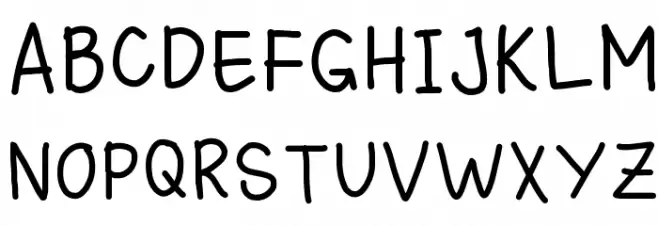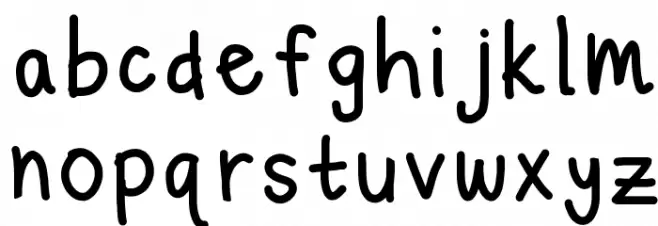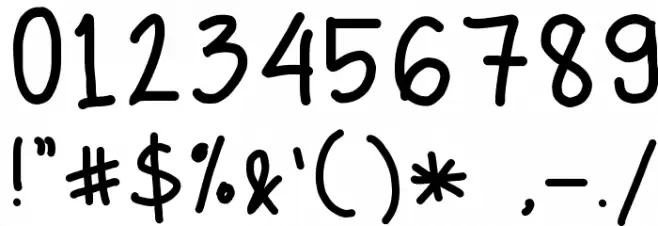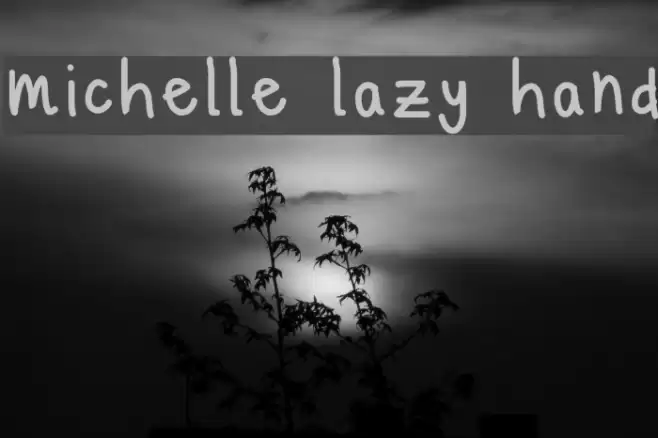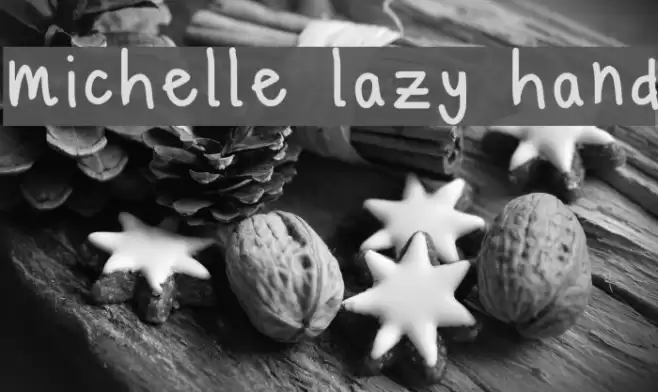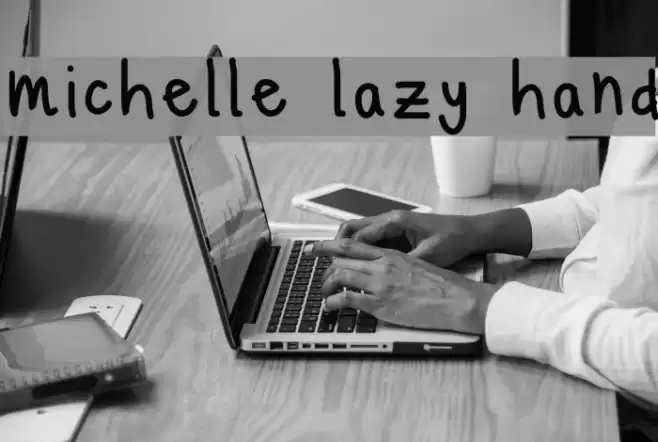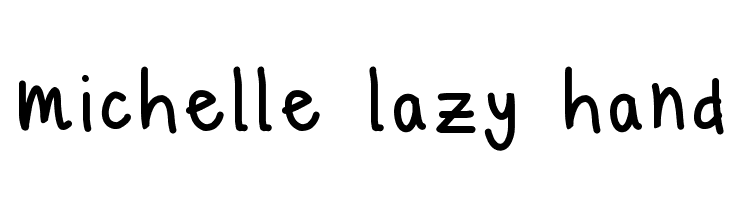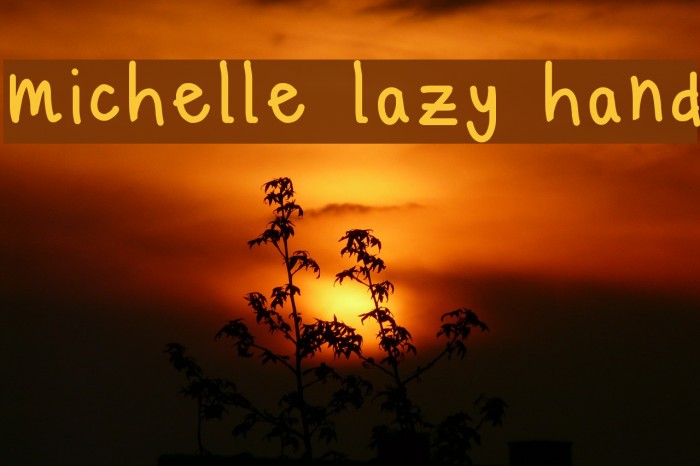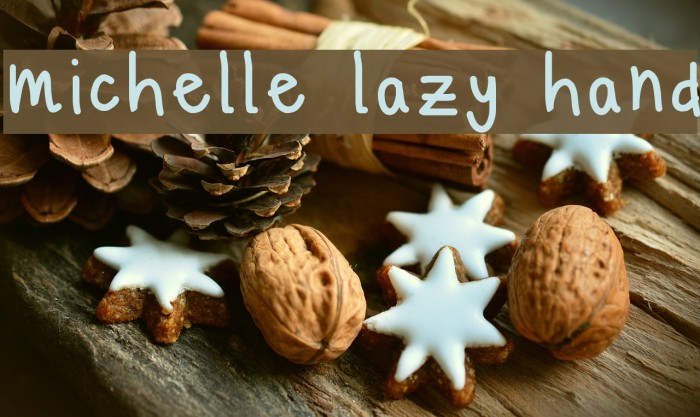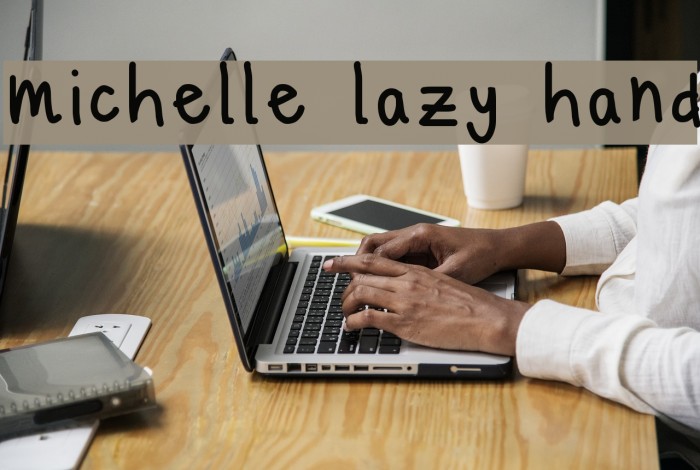
michelle lazy hand
This font features a playful and casual handwritten style, characterized by its rounded and slightly irregular letterforms. The uppercase and lowercase letters maintain a consistent flow, giving it an approachable and friendly appearance. The numerals and special characters are crafted with the same informal touch, making them blend seamlessly with the alphabet. Its overall look is reminiscent of a relaxed, handwritten note, making it ideal for projects that require a personal touch. The strokes are uniform in thickness, providing a balanced and cohesive look across all characters.
A playful, handwritten font with rounded, informal letterforms.
- Proposed Projects: Ideal for greeting cards, personal invitations, children's books, and casual branding.
- Overall Style: Casual, Playful
- Use Case: Headlines, Informal text, Personal projects